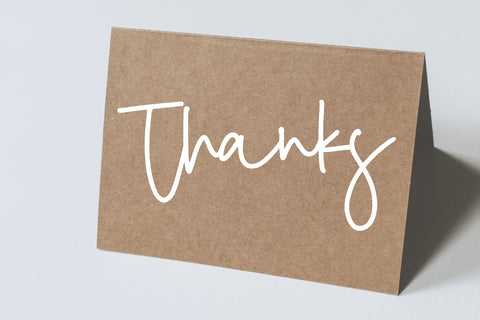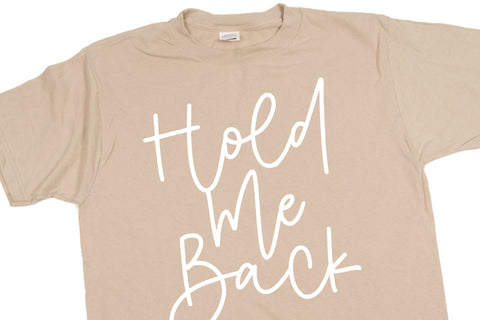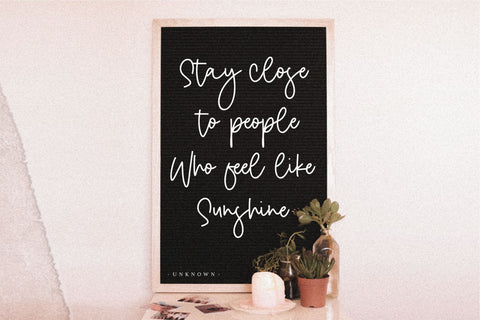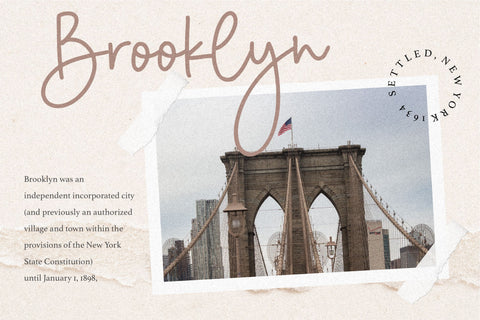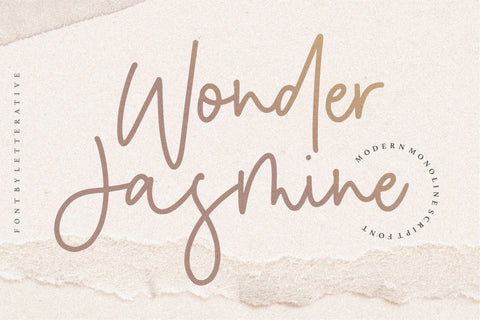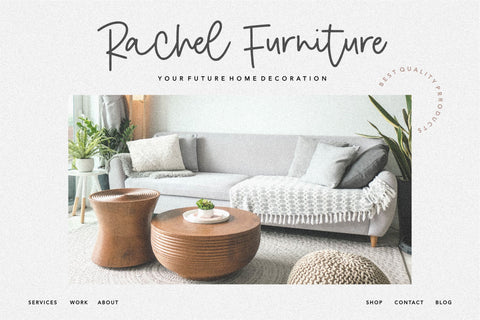
Wonder Jasmine Modern Monoline Script Font
Introducing by Letterative Studio : Wonder Jasmine Font
Wonder Jasmine is a Modern Monoline Script Font.
Wonder Jasmine is perfect for product packaging, branding project, megazine, social media, wedding, or just used to express words above the background.